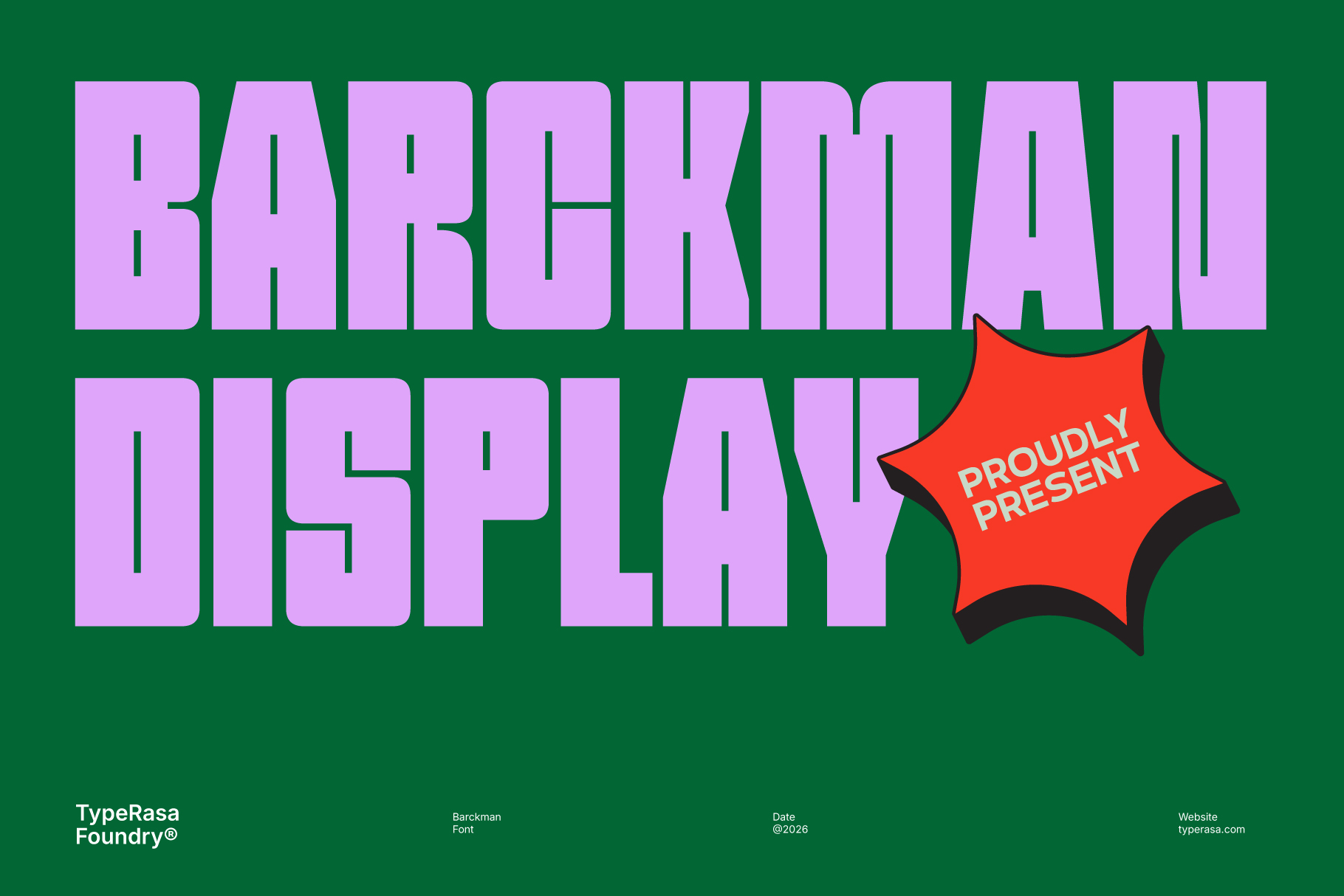
Barckman brings a bold typographic style with an experimental edge. Its wide and assertive letterforms are combined with unconventional design elements, creating a unique and energetic appearance. This font is ideal for creative projects that aim to stand out and break the norm.